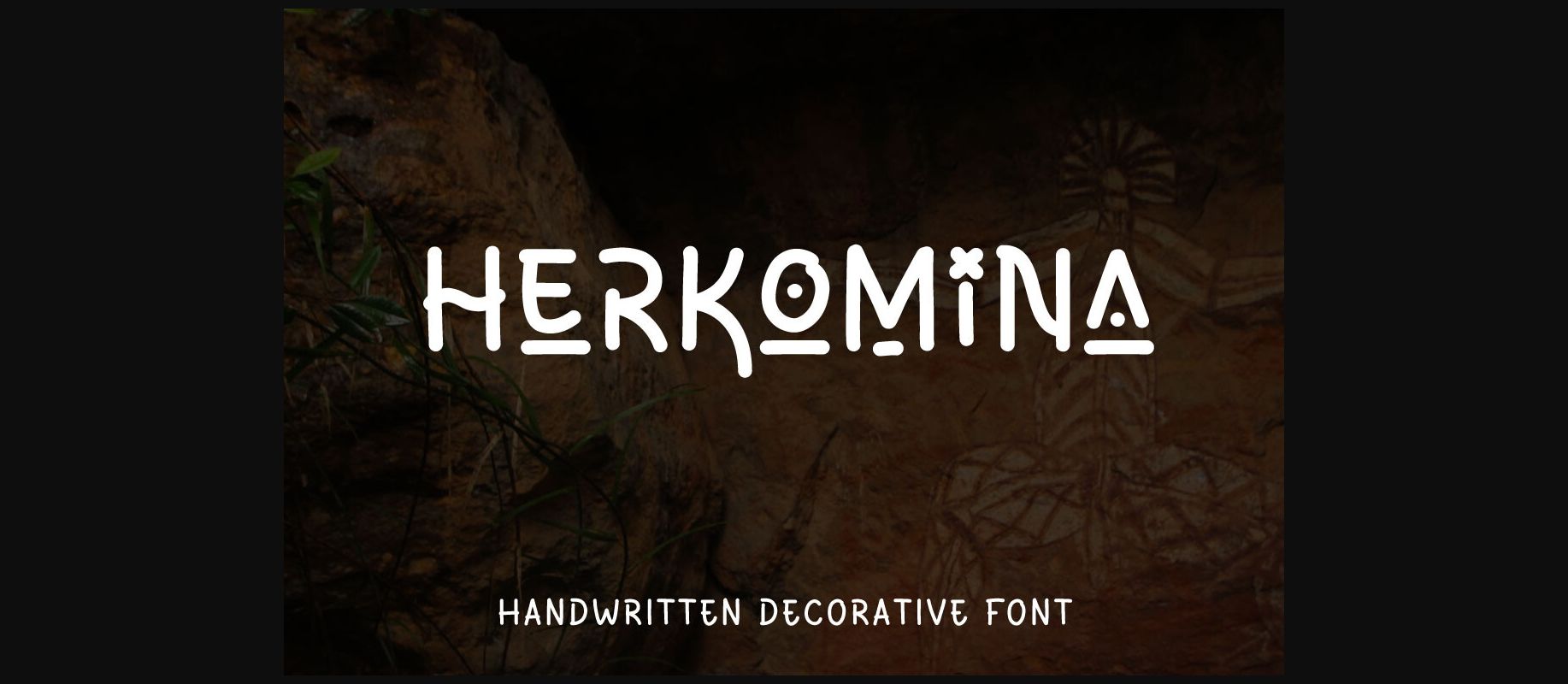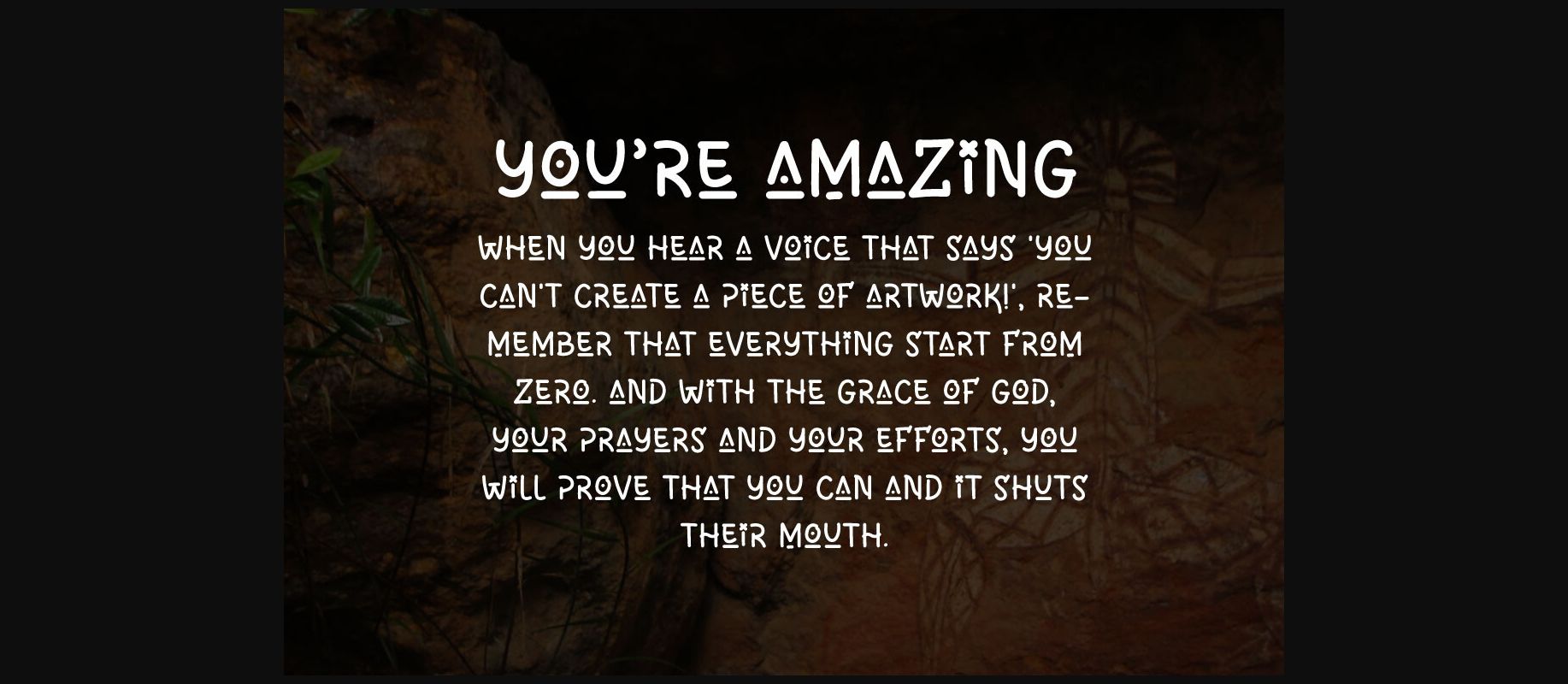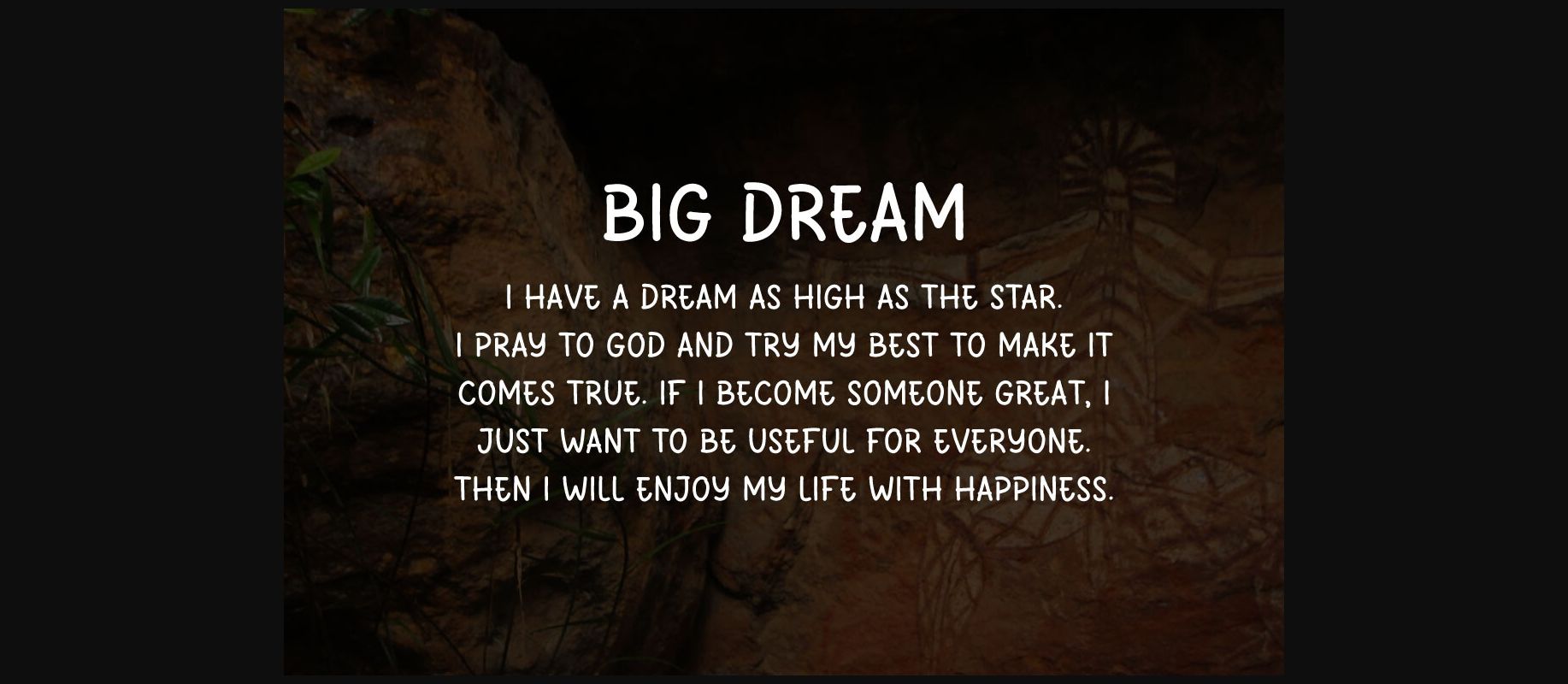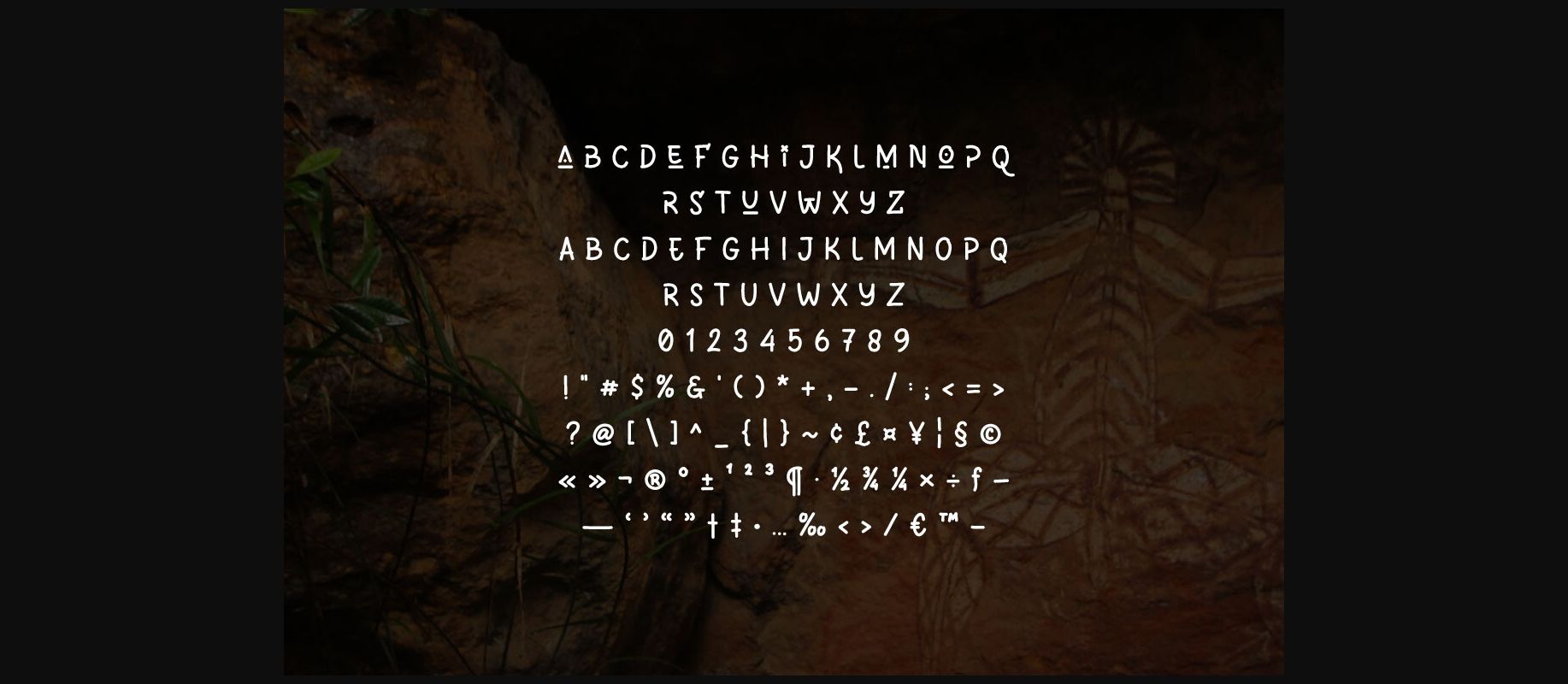
About Herkomina Font
Introducing “Herkomina”, a unique decorative font that effortlessly marries elegance with artistic flair. This one-of-a-kind typeface is designed to captivate and elevate, making a statement wherever it graces the page.
Herkomina is a symphony of intricate curves and graceful loops, each letter meticulously crafted to evoke a sense of timeless sophistication. Its distinctive characters seamlessly blend modern aesthetics with a touch of vintage charm, resulting in a font that stands out in the world of typography.